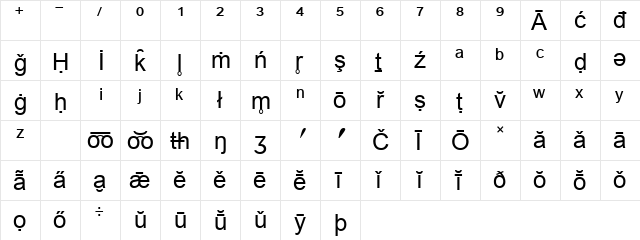
Bookshelf Symbol 1 Regular Font Preview
Bookshelf Symbol 1 Regular
Bookshelf Symbol 1 Regular Font Details
Design Context for Bookshelf Symbol 1 Typeface
Bookshelf Symbol 1 offers clean, dependable letterforms without strong stylistic allegiance, making it a practical choice for designers who need flexibility.